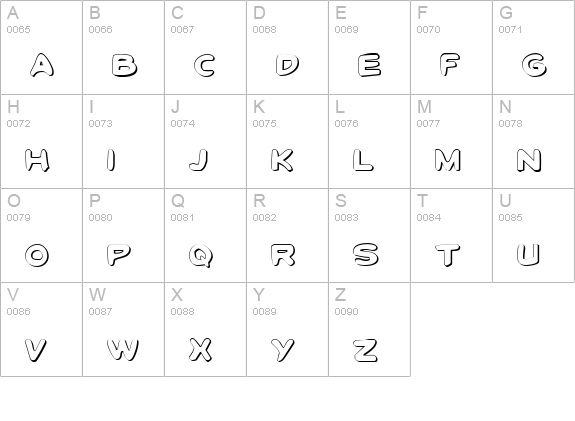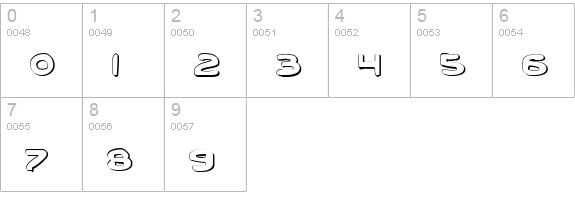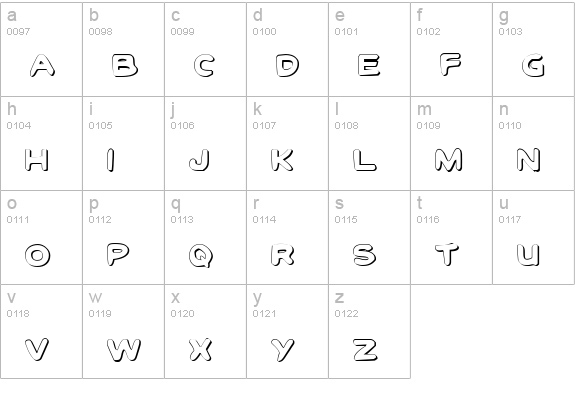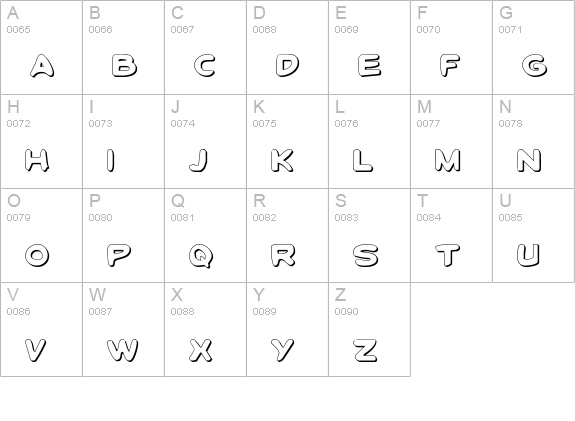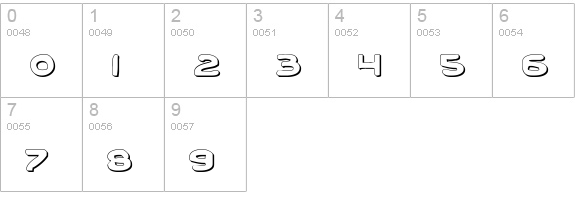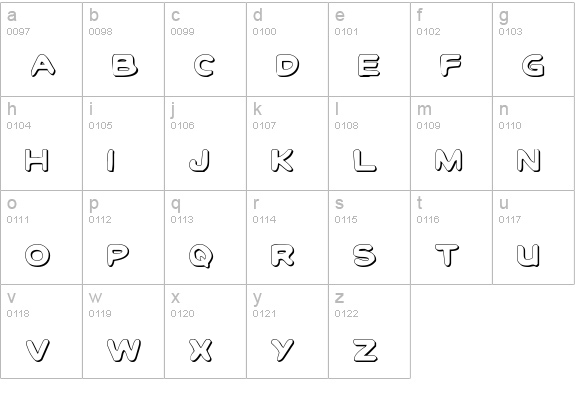
Introducing Toon Town Industrial Shadow, a captivating and bold font that brings a touch of whimsy and playfulness to any project. This unique typeface is inspired by the dynamic and vibrant world of cartoons, perfectly capturing the essence of animated adventures. Toon Town Industrial Shadow features a striking industrial design, with bold lines and shadowed edges that add depth and dimension to each character. Its confident and eye-catching appearance is bound to make a lasting impression, whether used in logos, headlines, posters, or any other creative endeavor. What sets Toon Town Industrial Shadow apart is not just its visual appeal, but also its versatility. This font is incredibly flexible, adapting effortlessly to a range of themes and styles. From modern and edgy to retro and nostalgic, it effortlessly brings an element of fun and excitement to any design. And the best part? Toon Town Industrial Shadow is available for free! Yes, you read that right. You can easily download this extraordinary font at FontsMarket.com, your go-to destination for high-quality and diverse typographic resources. By offering this font freely, we aim to empower designers, artists, and enthusiasts alike to unleash their creativity and bring their visions to life. So, whether you're working on a project that needs a touch of whimsy or simply want to add a dash of playfulness to your designs, Toon Town Industrial Shadow is the perfect choice. Download it today from FontsMarket.com and embark on a journey of limitless creativity. Let your imagination run wild and embrace the charm and magic of this captivating font.